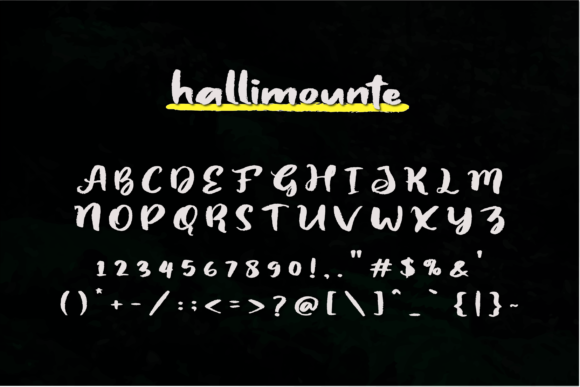
Introduction to Hallimounte Font
Hallimounte is a raw and authentic script that evokes charm.
| 👤 Author | Hanna Bie |
Use it to add a playful touch to any creative project .
Key Features of Hallimounte Font
Why Choose Hallimounte Font?
Hallimounte Font offers exceptional quality and versatility, making it a valuable addition to your design toolkit. Whether you’re creating for personal projects or commercial use, Hallimounte Font delivers professional results.